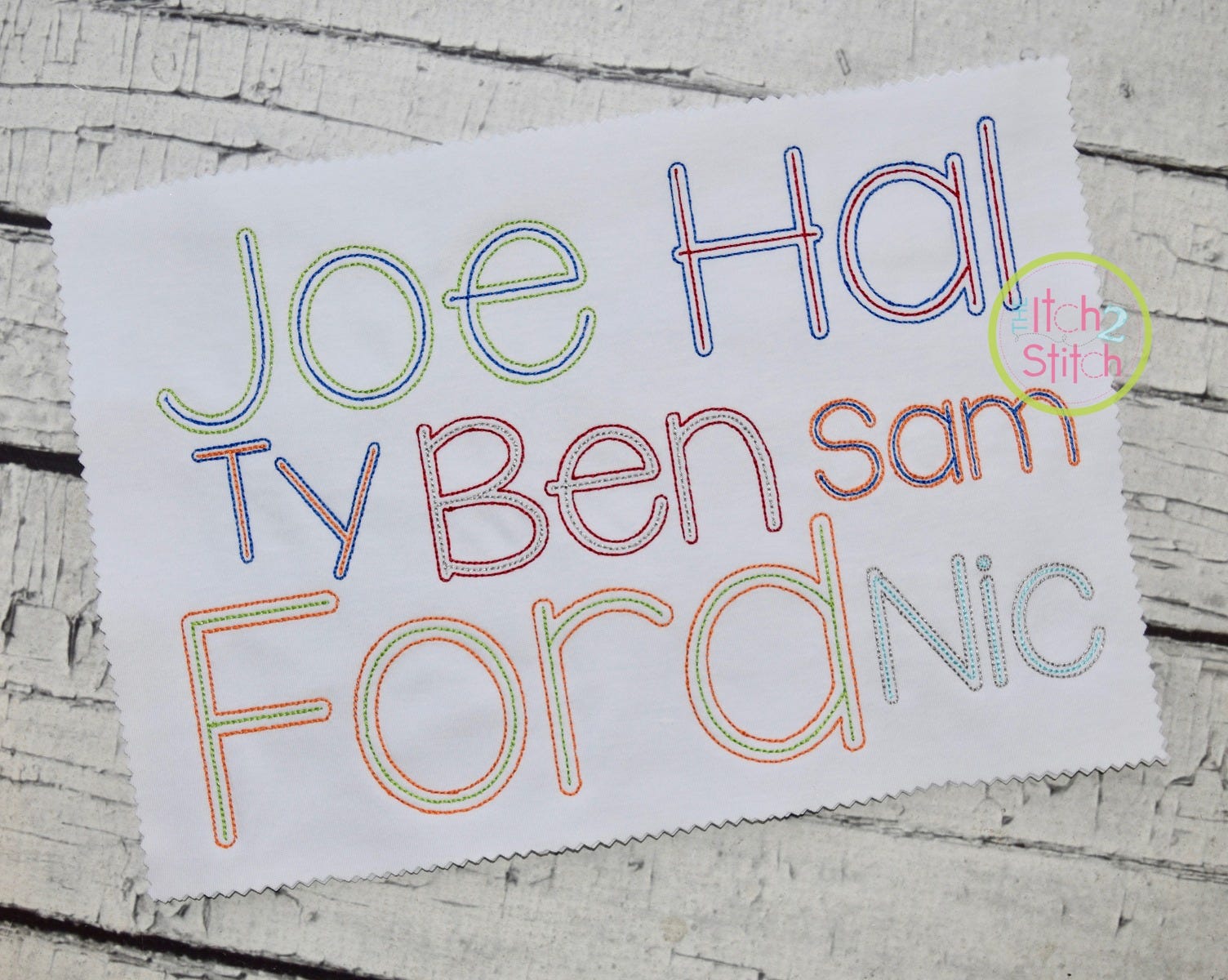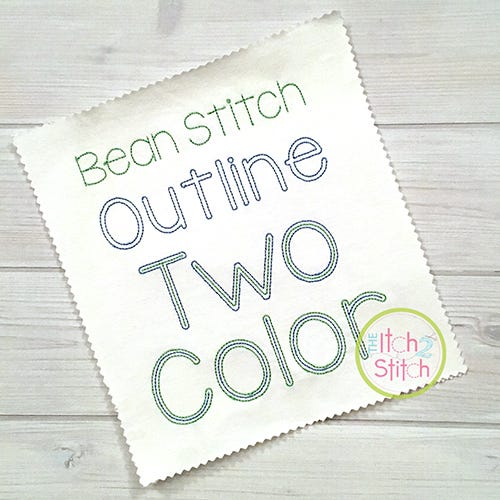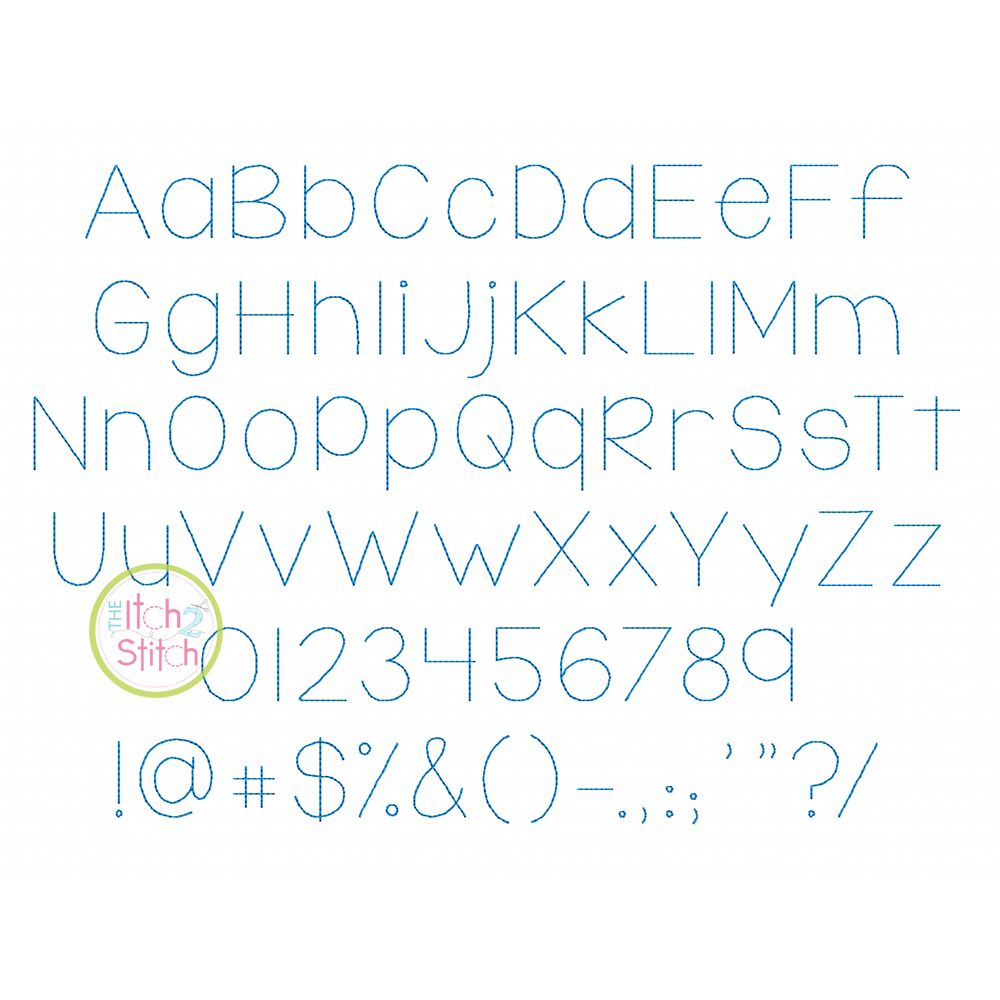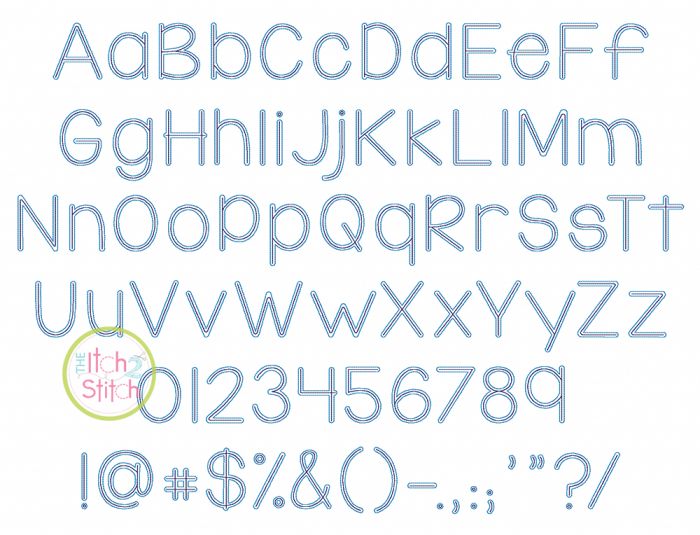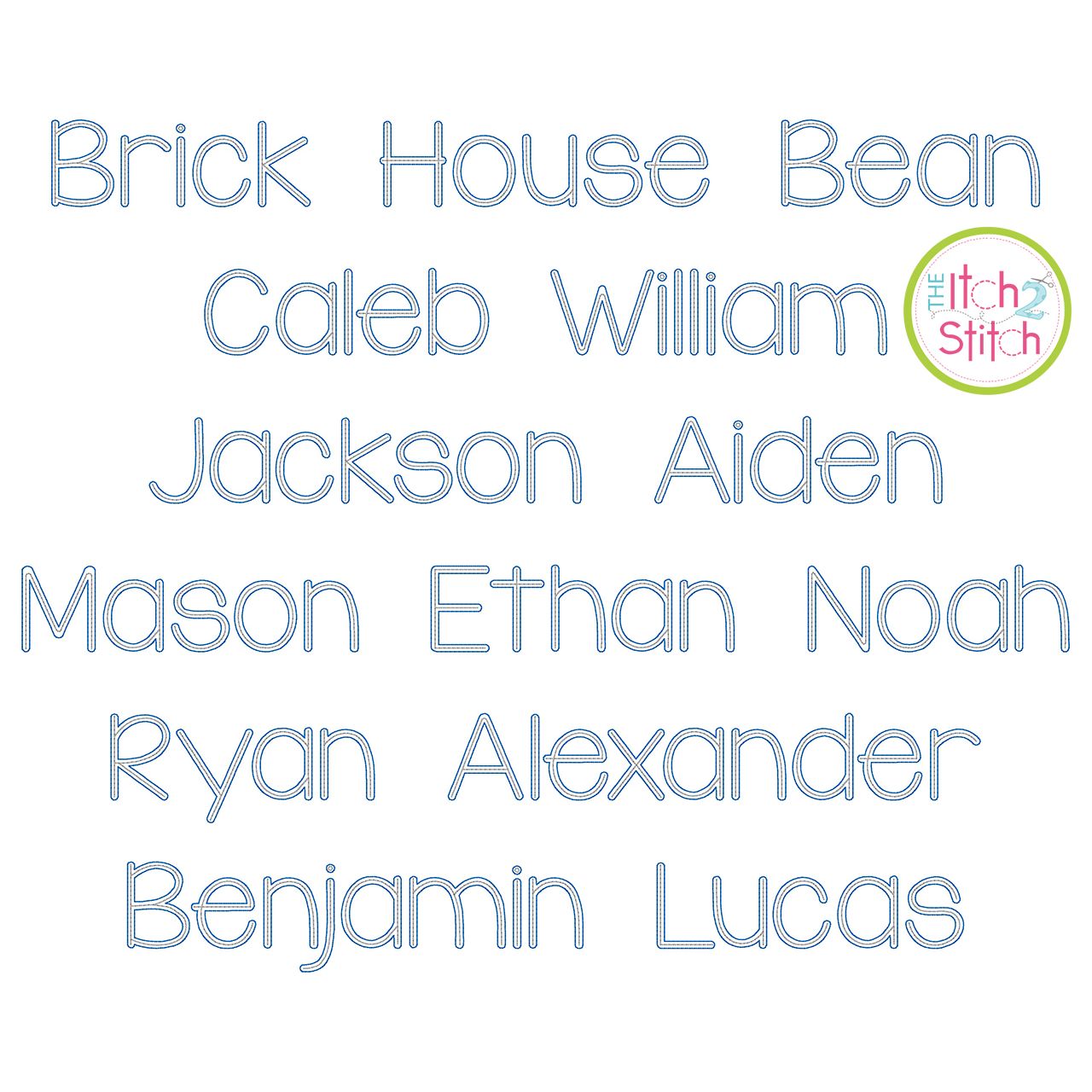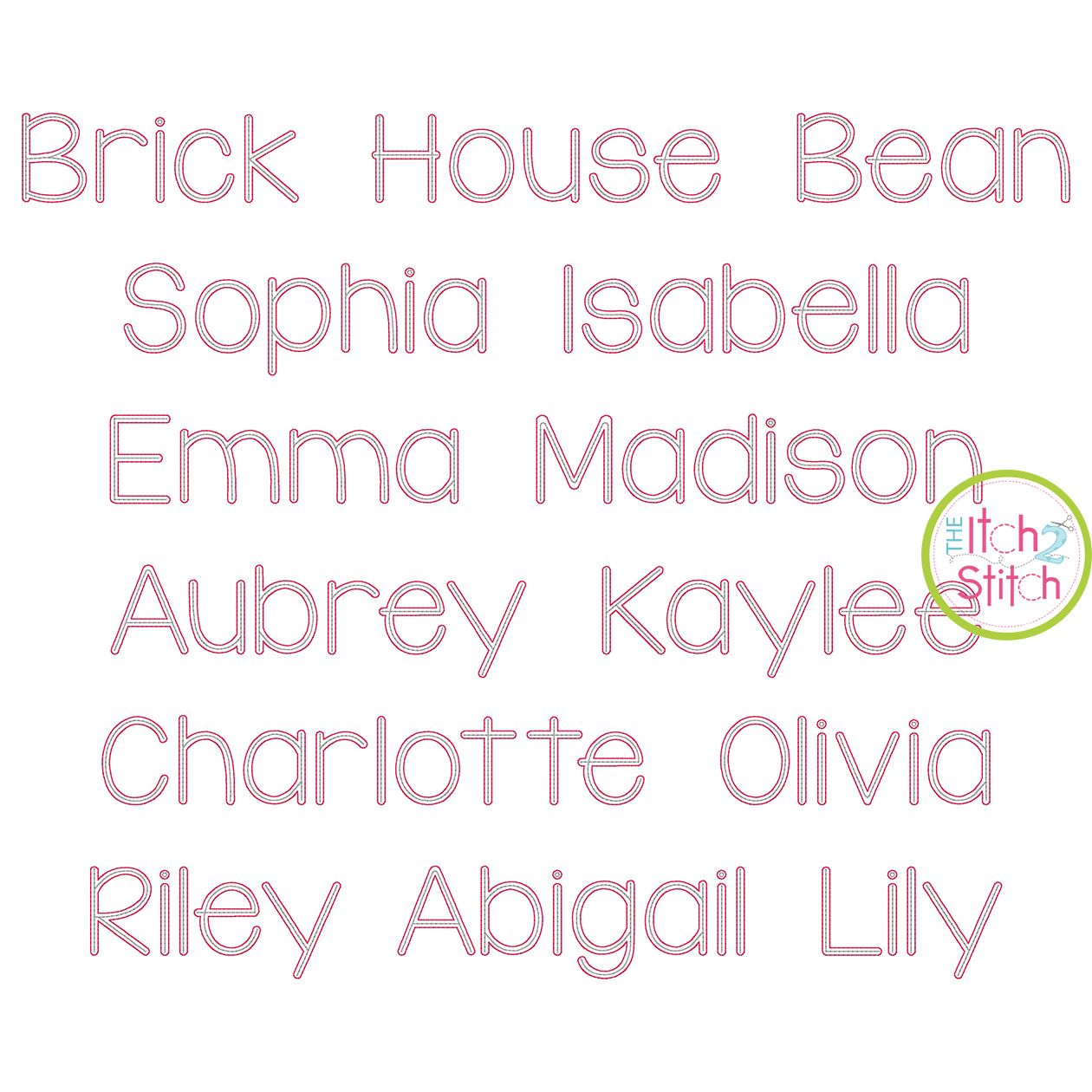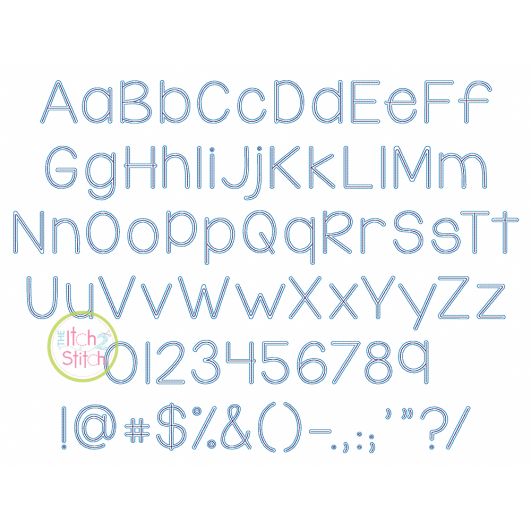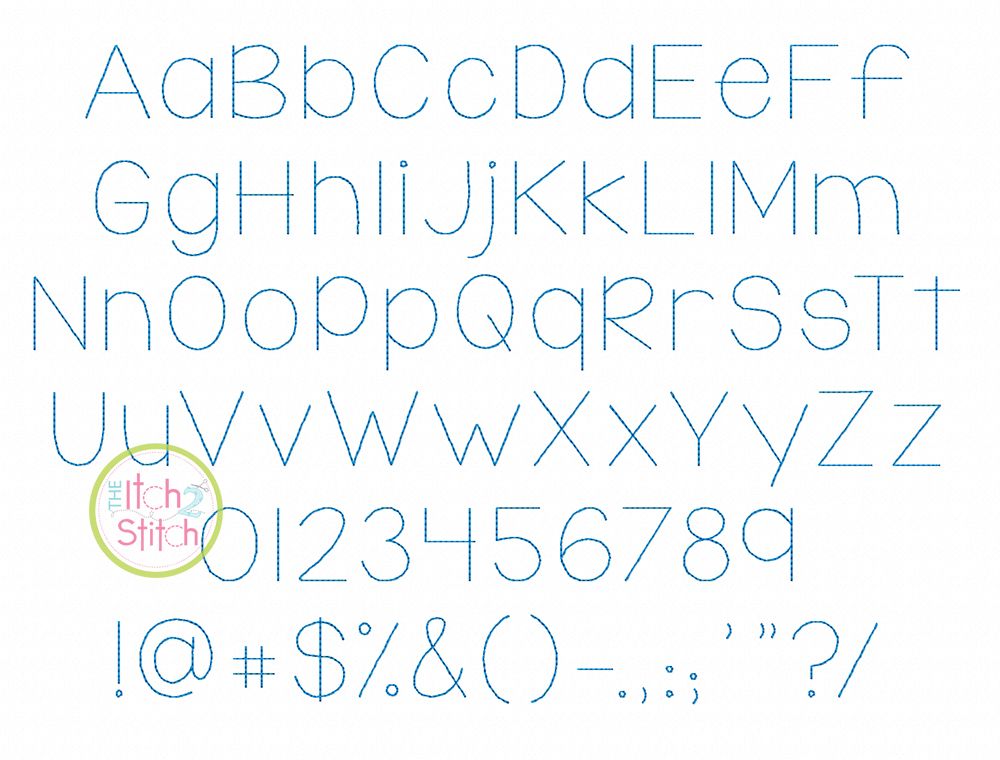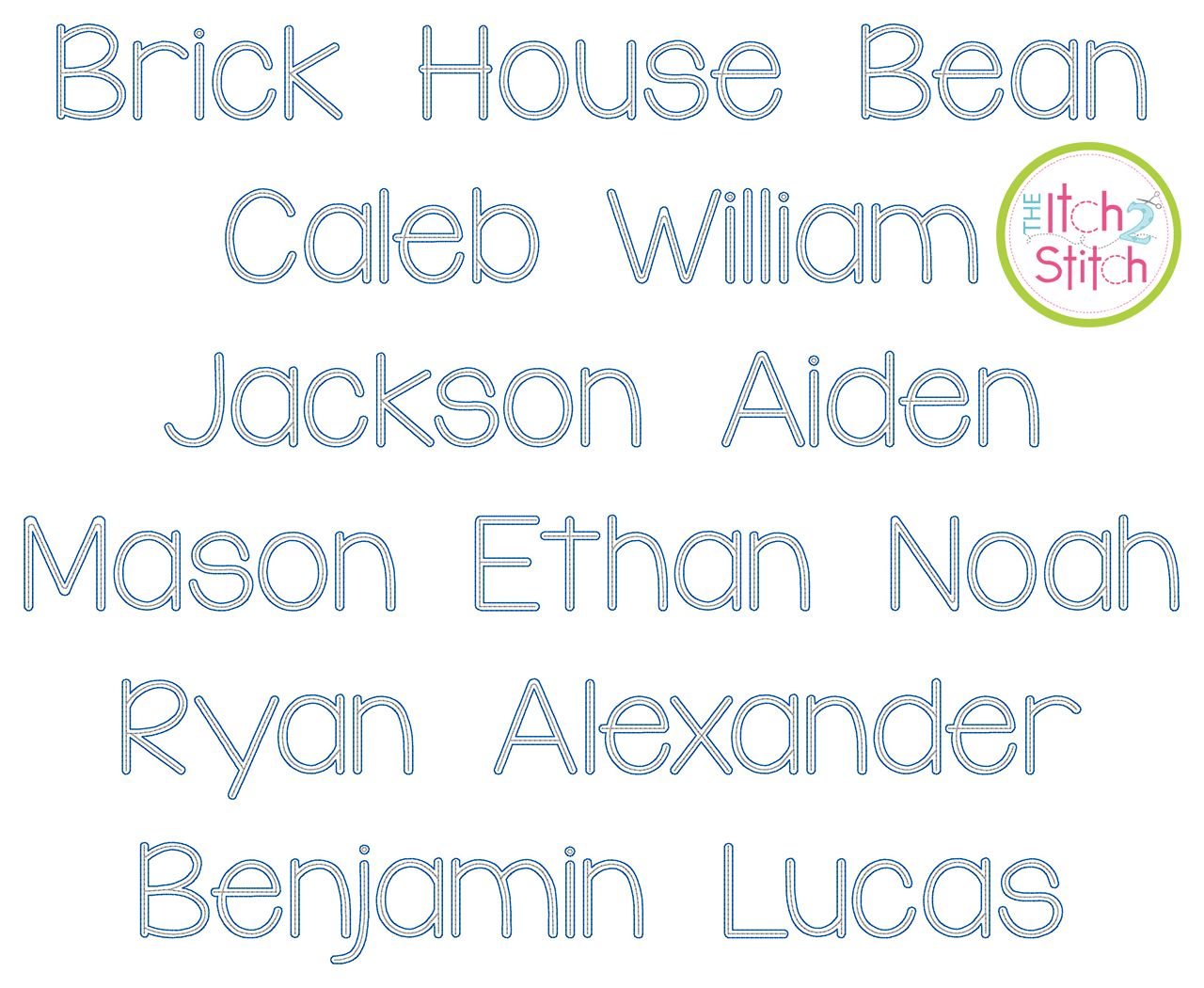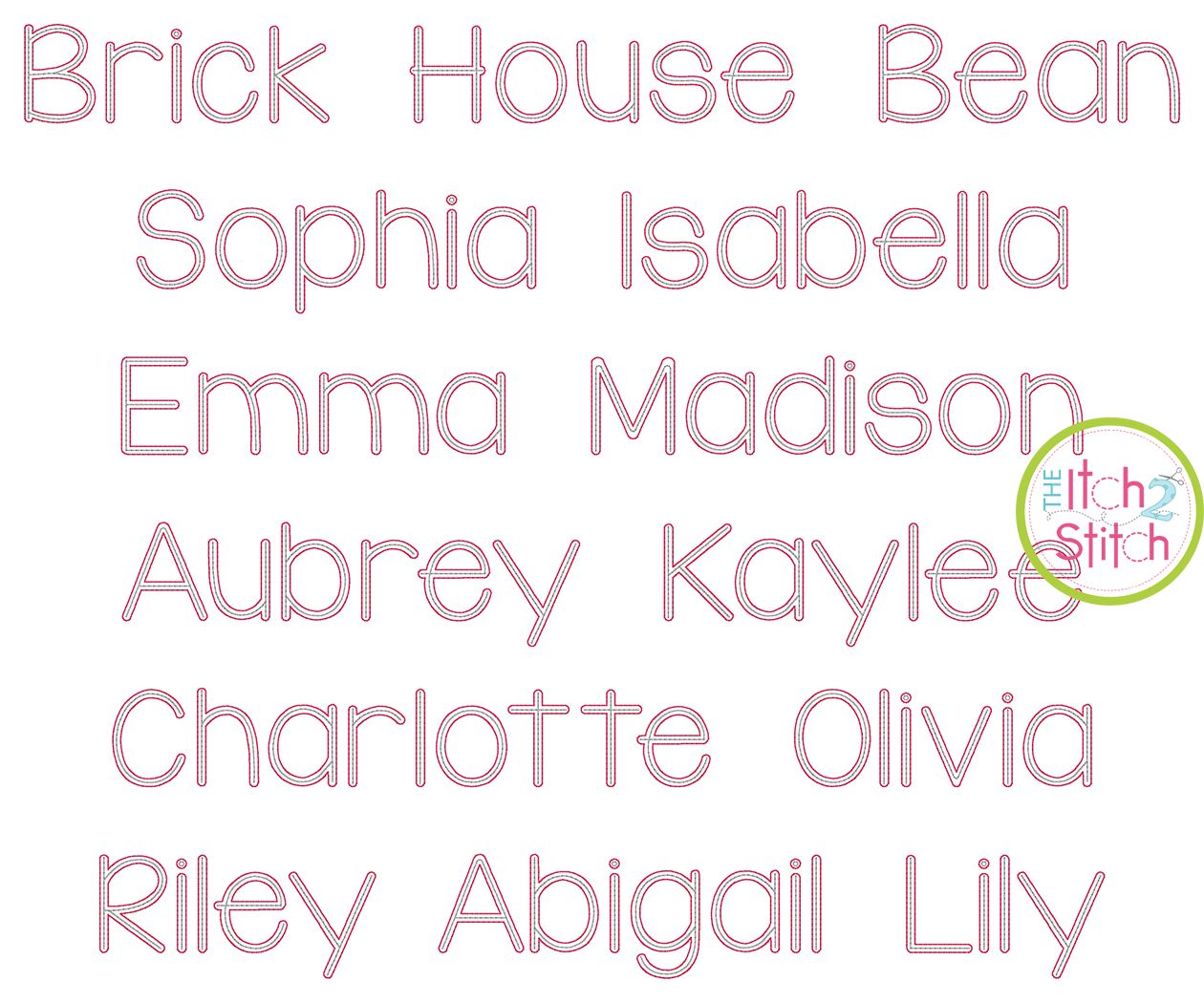
Brick House Two Color Bean Stitch Embroidery Font
- Brick House Two Color Bean comes in seven sizes (1.25", 1.5", 1.75", 2", 2.5", 3" and 3.5"). Please note a few of the 3.5" size files do not fit in a 4x4 hoop.
- Brick House Outline Bean comes in nine sizes (0.75", 1", 1.25", 1.5", 1.75", 2", 2.5", 3" and 3.5"). Please note a few of the 3.5" size files do not fit in a 4x4 hoop.
- Brick House Bean comes in five sizes (1.25", 1.5", 1.75" and 2").
Each version is a five-pass backstitch font originally designed to stitch on fabric, not card stock. Another version, Brick House Greeting Card Font, designed and tested on watercolor paper is sold separately.